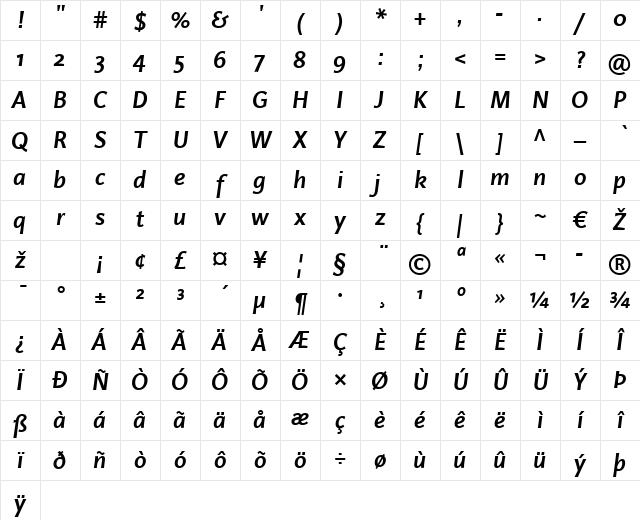
LTProjekt Bold Italic
Designer: Andreas Koch
Design Context for LTProjekt
LTProjekt is a composed and adaptable typeface that performs quietly and consistently across a wide range of design contexts. The slanted form adds forward momentum and visual energy. Its bold stroke weight gives it real presence on the page.